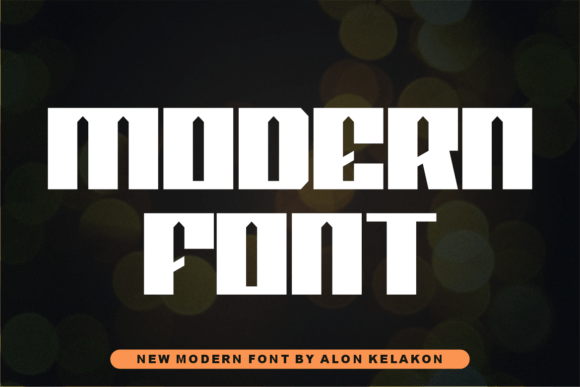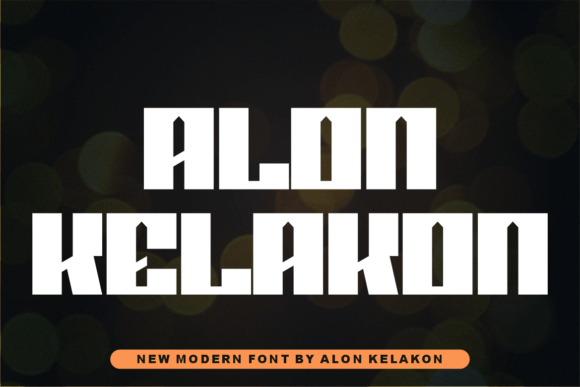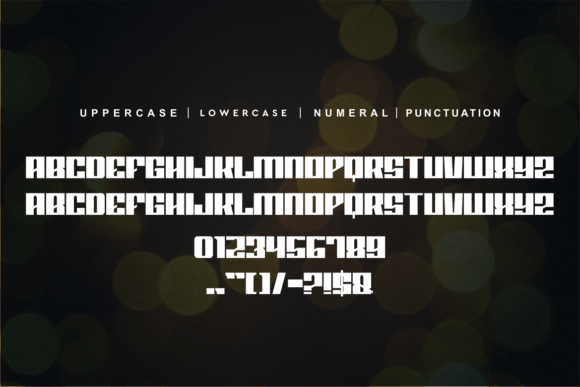
Recalek Font: Free Download Now
Introduction to Recalek Font
Recalek is a unique and modern display font.
πŸ‘€ Author alonkelakon
Key Features of Recalek Font
Why Choose Recalek Font?